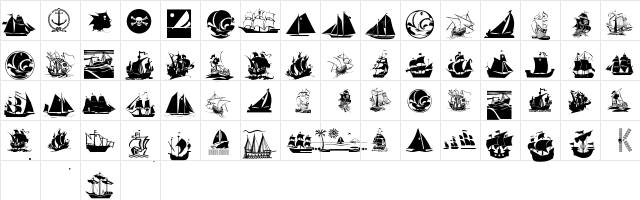
ArmadaPirata Regular
Design Context for ArmadaPirata Typeface
ArmadaPirata is a composed and adaptable typeface that performs quietly and consistently across a wide range of design contexts.